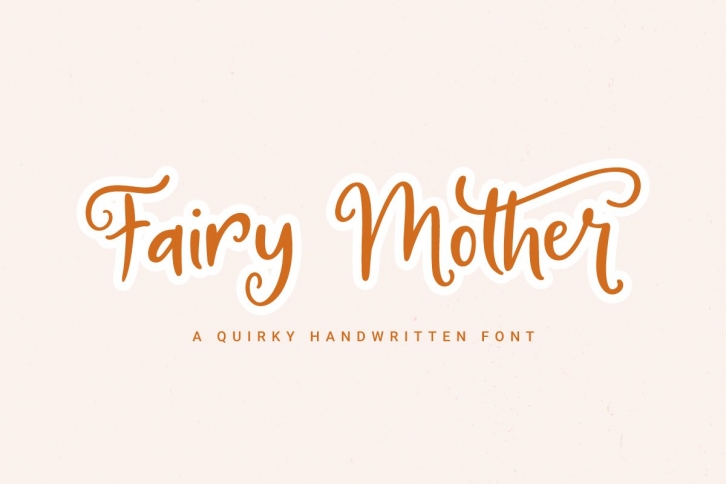
Fairy Mother is a beautiful font that was designed by Jimtype Studio. It's a great choice for designers and creatives who need such a font. It was released on February 2, 2021 and the file size is 19.18 MB. Fairy Mother may give a more youthful, expressive and casual look to your project. It is a very beautiful, refined, elegant, and high-quality font.